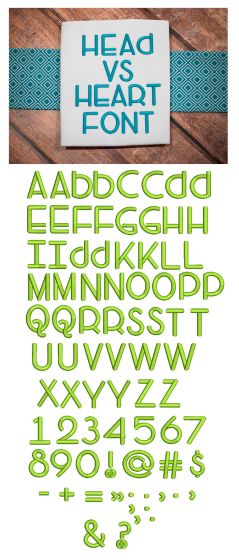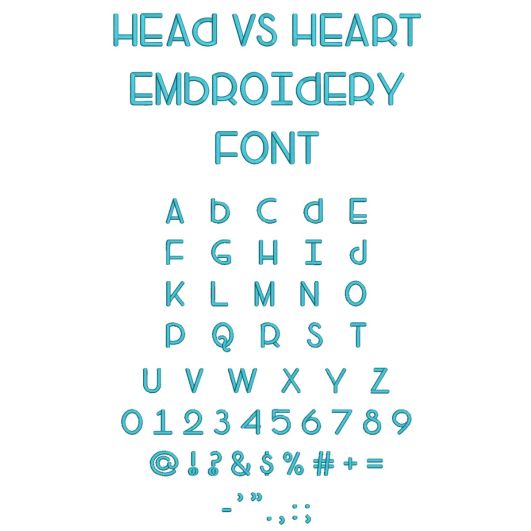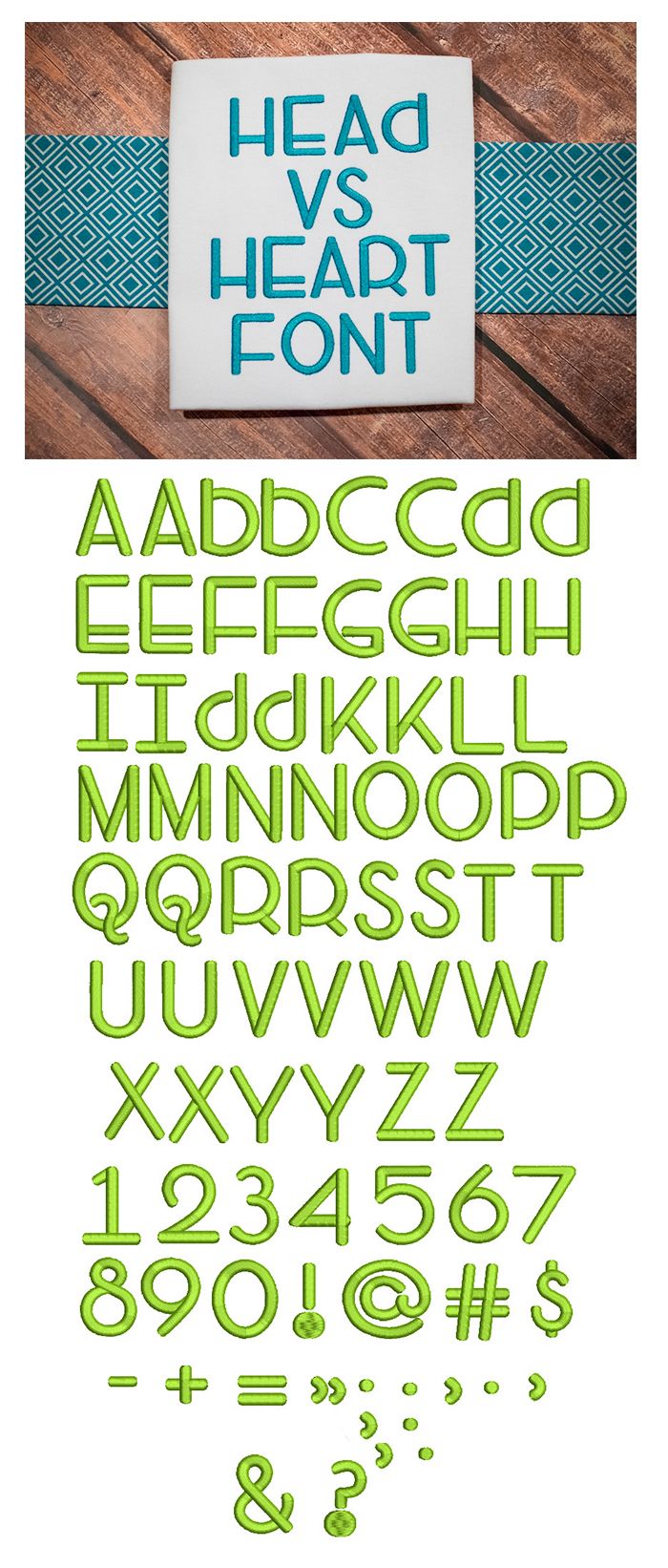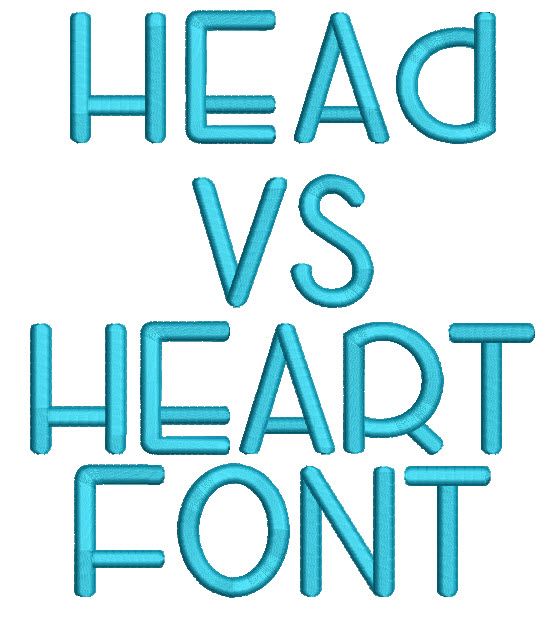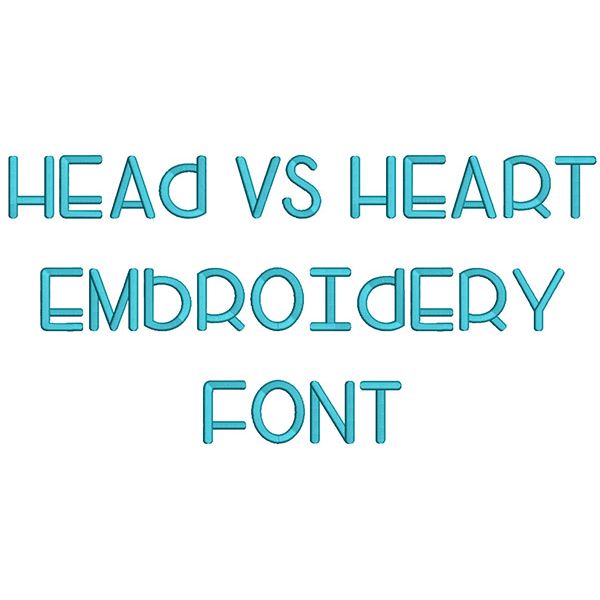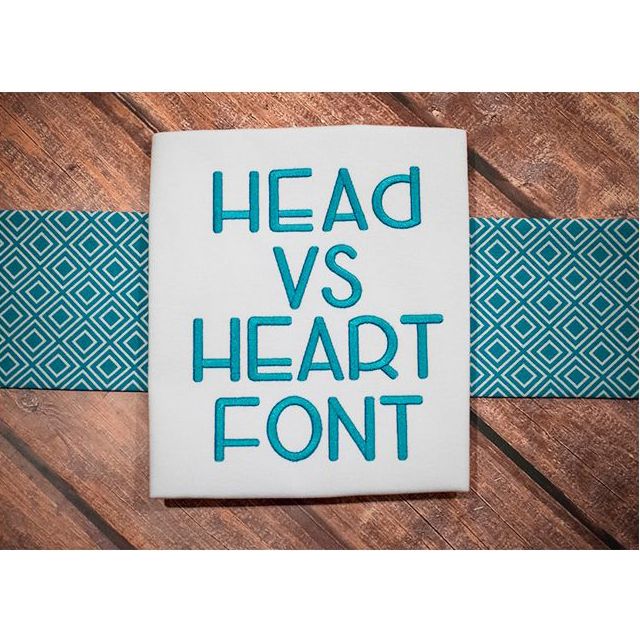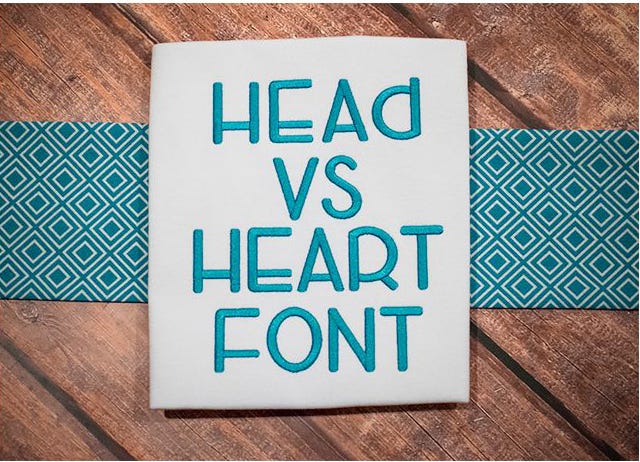
Head Vs Heart Satin Stitch Embroidery Font
Cute, chunky unicase font  All of our font alphabets are 100% manually digitized to bring you maximum stitch quality.
Please note this is a "unicase" font. There is only one design file for each letter of the alphabet. It is a mix of traditional capital and lowercase letters, as pictured. The dots on the punctuation symbols for the larger sizes feature split satin stitch, but all the lettering for all sizes is completely satin stitch.